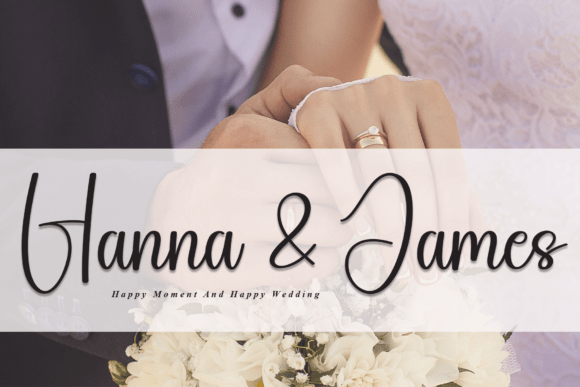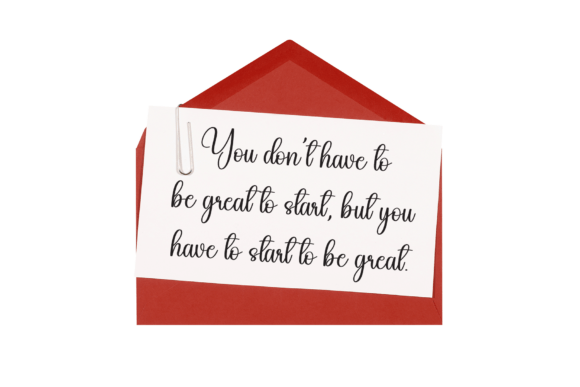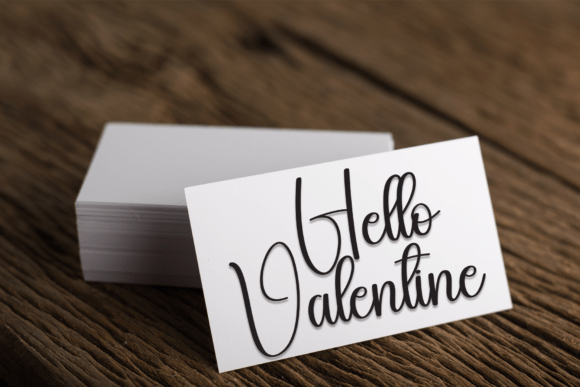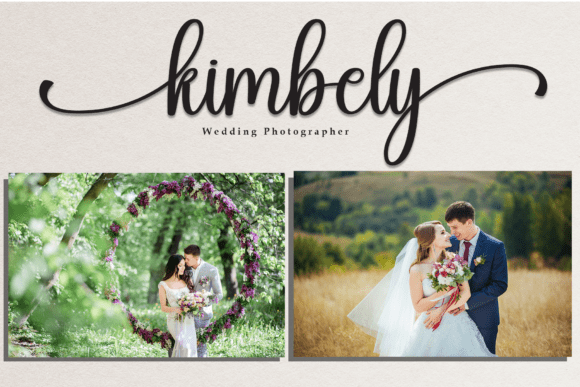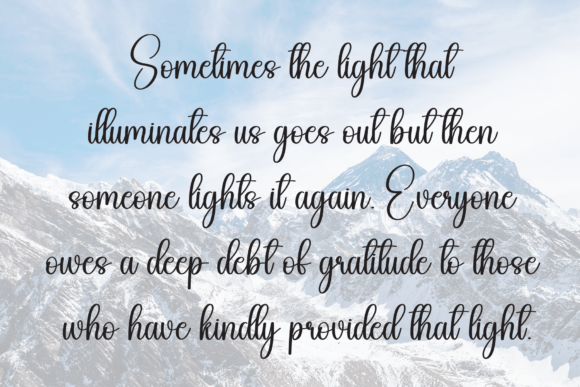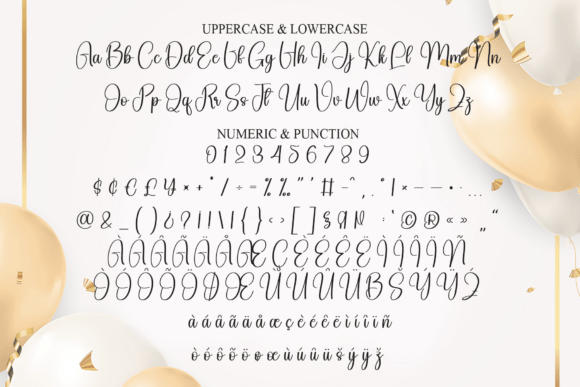
Introducing Birthday Font: Elevate Your Designs with Elegance and Charm
Are you searching for a font that embodies the perfect blend of sophistication and modernity? Look no further than Birthday Font, a stylish handwritten script font that is sure to elevate your designs to new heights. With its flowing strokes and organic curves, this beautiful typeface brings warmth and refinement to any project, making it an ideal choice for designers and crafters alike.
The Perfect Blend of Elegance and Modernity
Birthday Font is a masterfully crafted script font that seamlessly combines elegance with a modern flair. Its unique and stylish design makes it perfect for a wide range of applications, from branding and invitations to social media and more. Whether you’re looking to create a luxurious brand identity or a charming invitation, this font is sure to impress.
- Flowing Strokes: The font’s smooth and flowing strokes give it a natural, handwritten feel that is both elegant and refined.
- Organic Curves: The organic curves and subtle imperfections in the font add a touch of warmth and personality to your designs.
- Modern Flair: The font’s modern design ensures that your projects look fresh and contemporary, while still maintaining a sense of sophistication.
- Versatile: Birthday Font is perfect for a wide range of applications, from digital projects to print materials.
Why Choose Birthday Font?
So, why should you choose Birthday Font for your next project? Here are just a few reasons:
- Unique and Memorable: The font’s unique design ensures that your projects will stand out from the crowd and leave a lasting impression.
- Easy to Read: Despite its elegant and refined design, Birthday Font is easy to read, making it perfect for body text and headings.
- Customizable: The font is highly customizable, allowing you to adjust the size, color, and style to suit your project’s needs.
Using Birthday Font in Your Designs
Birthday Font is incredibly versatile and can be used in a wide range of applications, including:
- Branding: Use the font to create a luxurious brand identity that reflects your company’s values and personality.
- Invitations: Add a touch of elegance and sophistication to your invitations, whether it’s for a wedding, birthday party, or corporate event.
- Social Media: Use the font to create eye-catching social media graphics that will help you stand out from the crowd.
Tips and Tricks for Getting the Most Out of Birthday Font
Here are a few tips and tricks to help you get the most out of Birthday Font:
- Experiment with Different Sizes: Don’t be afraid to experiment with different font sizes to create visual interest and hierarchy in your designs.
- Play with Color: Try pairing the font with different colors to create a unique and eye-catching design.
- Mix and Match: Experiment with mixing and matching Birthday Font with other fonts to create a unique and visually appealing design.